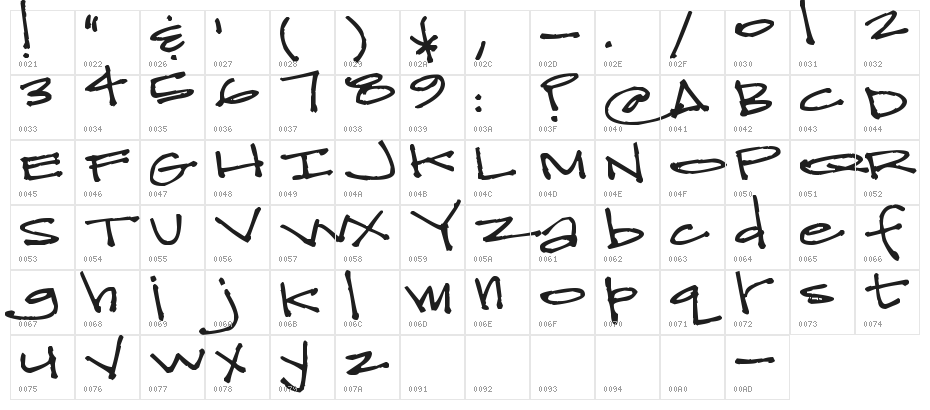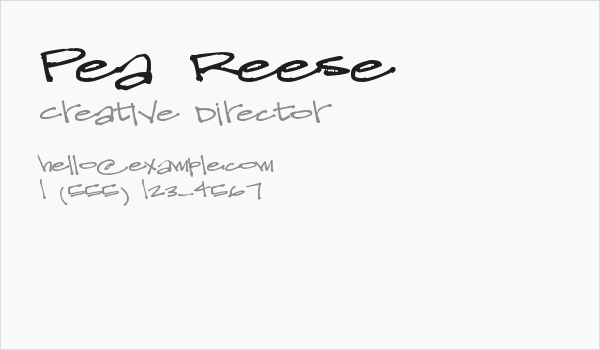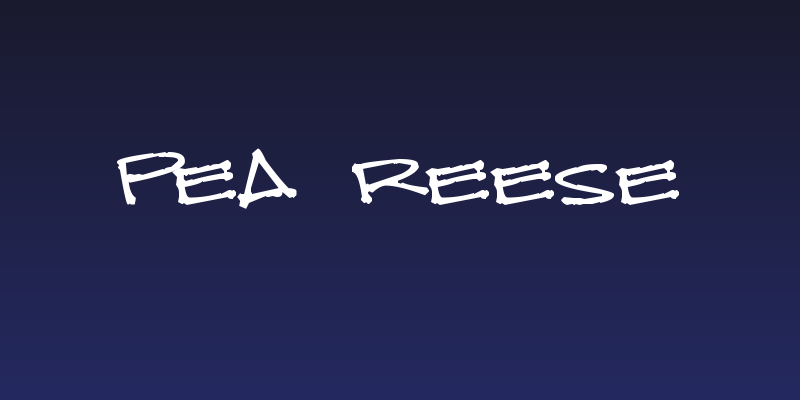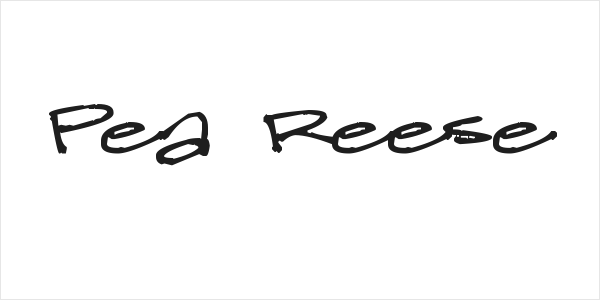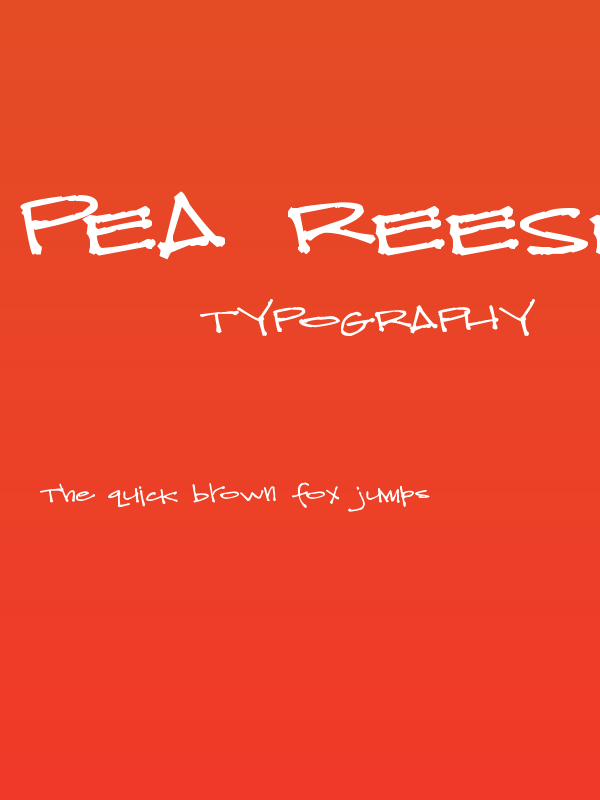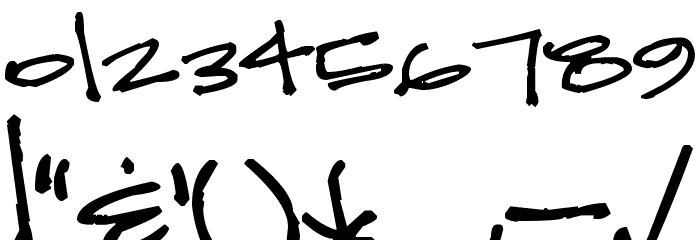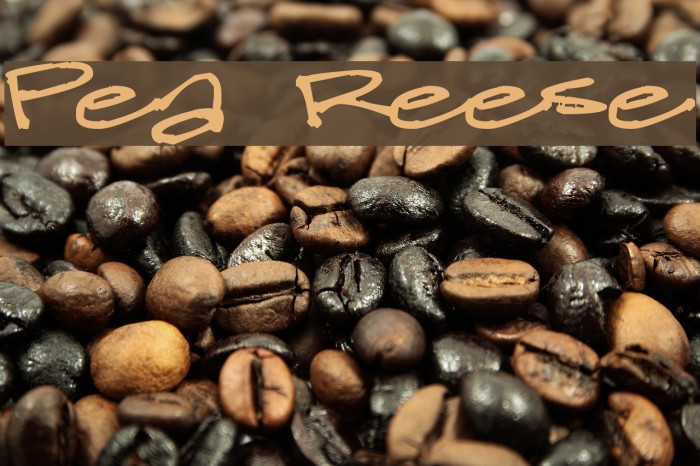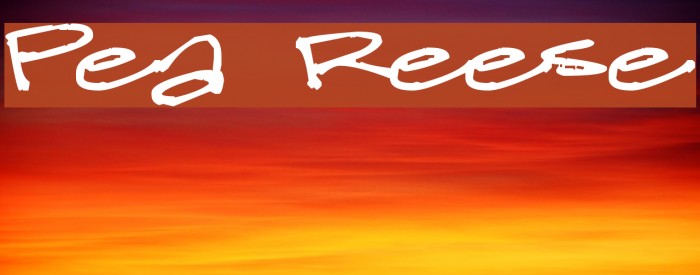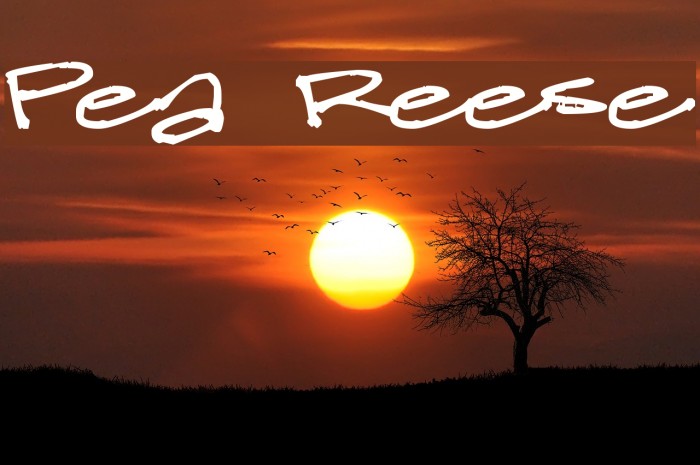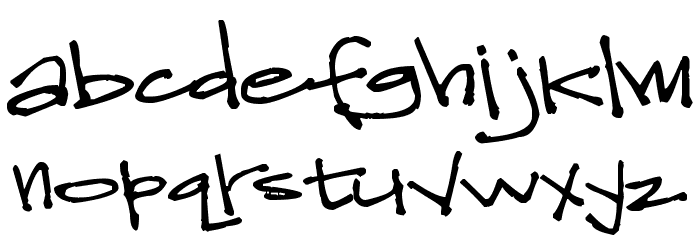
Pea Reese Font
Pea Reese Description
This font features a playful, handwritten style with a casual and informal appearance. The letters are slightly slanted, giving it a dynamic and lively feel. The strokes are uneven, mimicking the natural flow of handwriting, which adds a personal touch. The uppercase and lowercase letters maintain a consistent style, with some characters having unique, quirky elements that enhance its charm. The numbers and special characters are crafted to match the overall aesthetic, making it versatile for various uses.
| Use Case | Greeting cards, Personal notes, Creative projects |
| Proposed Projects | Ideal for personal notes, greeting cards, children's books, and creative projects that require a friendly and approachable look. |